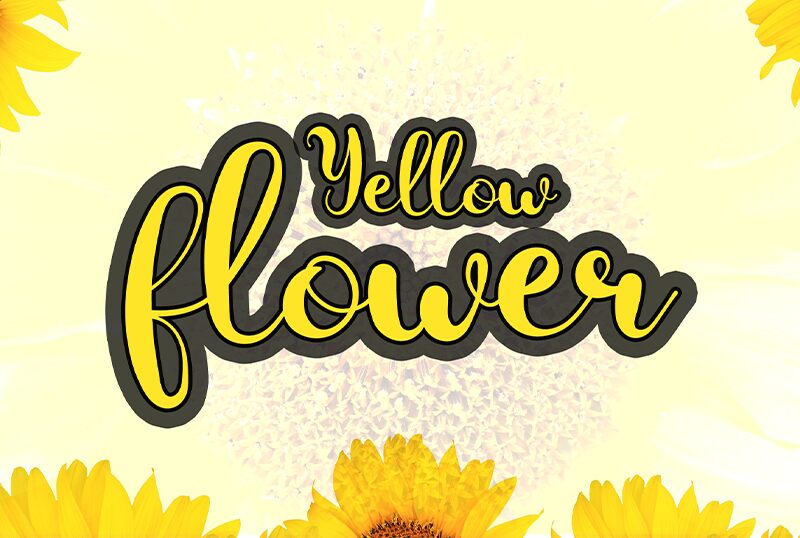
Yellow Flower is a stunning calligraphy font designed by Dedi Mujiono. Its semi-bold weight adds an element of elegance and sophistication to any project. This font is perfect for invitations, wedding stationery, branding, and social media graphics. With its flowing strokes and delicate curves, Yellow Flower adds a touch of whimsy to your design while remaining legible and refined. Use it for anything from feminine beauty products to luxury fashion brands. Let Yellow Flower bring a touch of grace to your next project!
Yellow Flower
Dedi Mujiono